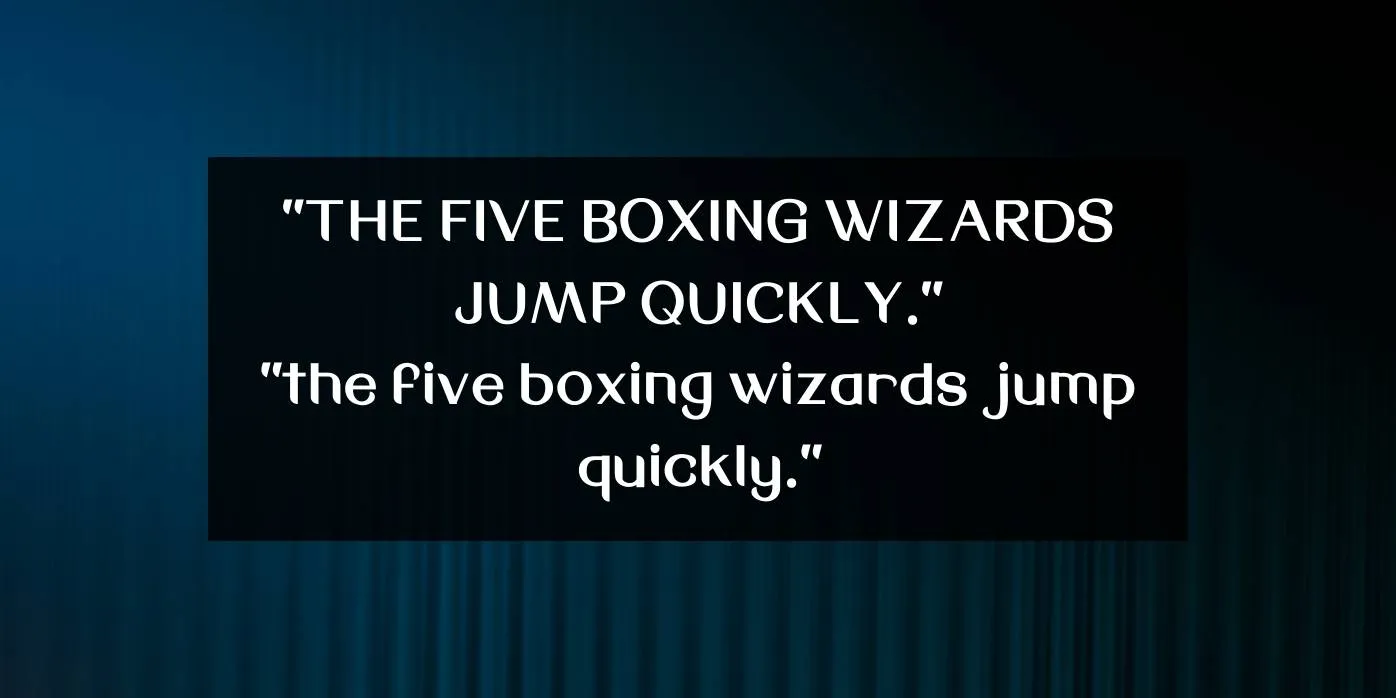
Feather Cut Font
Feather Cut Font is a sans serif typeface that is developed by Rutwa Maharaul. The typeface has a very distinctive feather-like appearance which makes it ideal for headlines and other display purposes. The font is available in both regular and italic styles. The Feather Cut Typeface is a great choice for headlines and other display purposes.
The font has a very distinctive feather-like appearance which makes it stand out from the crowd. The font is available in two different weights, so you can choose the one that best suits your needs. For more classic features, you will have to use its alternative uni neue font which has the same features. Its generator tool can help you create your own custom designs using this font.